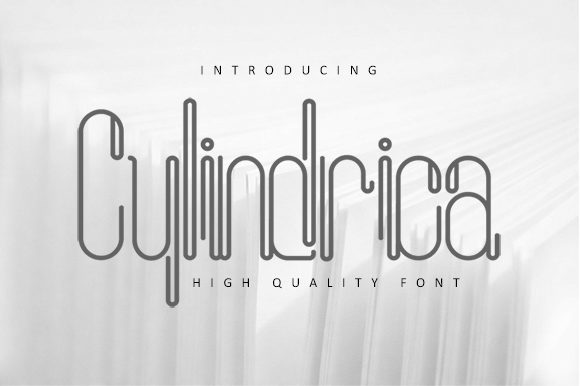
Unleash the power of sophistication and precision with Cylindrica, the contemporary sans serif font designed to elevate your designs. Its crisp and minimalist aesthetics bring a breath of fresh air to your creative projects, making it the perfect choice for those seeking a modern and elegant touch.
Embrace the versatility of Cylindrica, seamlessly adapting to a wide spectrum of design applications. Its clean lines and neutral tones effortlessly complement any visual landscape, whether you're crafting stunning logos, sleek websites, captivating presentations, or eye-catching marketing materials.
Step into the world of sophistication and finesse with Cylindrica. Its refined curves and sharp angles create a captivating harmony, drawing attention to the essence of your designs. Let your words and visuals shine with clarity and elegance, leaving a lasting impression on your audience.
Experience the joy of effortless creativity with Cylindrica. Its intuitive design and seamless flow empower you to bring your ideas to life with ease. Unleash your imagination and let your designs flourish with the elegance of simplicity.
Make a statement with Cylindrica. Elevate your brand's visual identity, engage your audience with captivating designs, and convey your message with clarity and poise. Embrace the future of typography with Cylindrica, the font that transforms your creative visions into reality.